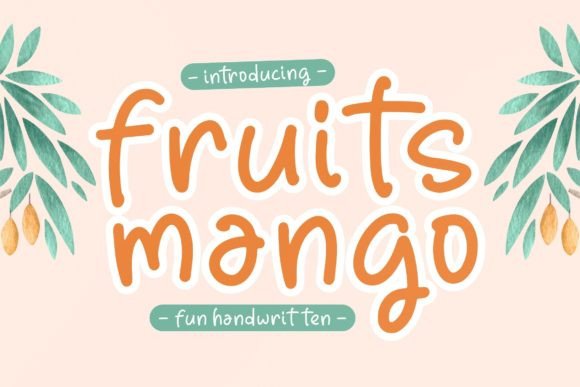
Behold, the captivating Fruits Mango Font, a script typeface that exudes charm and playfulness. It's a handwritten wonder, meticulously crafted by the skilled artisans at Glorytype Studio, specifically designed to bring life to your creative endeavors.
Crafted with meticulous attention to detail, Fruits Mango is a symphony of curves and flourishes that dances across the page, evoking a sense of whimsy and delight. Its organic and fluid forms create a visual tapestry that's both eye-catching and inviting, making it an ideal choice for projects that demand a personal touch.
With its inherent versatility, Fruits Mango effortlessly adapts to a myriad of projects. Unleash your creativity and let it adorn your logos, branding projects, homeware designs, and product packaging. Bring a touch of charm to your mugs, quotes, posters, and shopping bags. Transform your t-shirts, book covers, name cards, and invitation cards into works of art. Let Fruits Mango grace your greeting cards, labels, photography, and watermarks, adding a layer of sophistication to any project.
Whether you're a seasoned designer or just starting your creative journey, Fruits Mango is the perfect font to elevate your projects to new heights. Its innate beauty captivates audiences, leaving a lasting impression that resonates with hearts and minds.
The beauty of Fruits Mango lies in its ability to evoke emotions and tell stories. Its whimsical strokes and graceful loops add personality and depth to your designs, creating a captivating narrative that transports viewers into a world of imagination and wonder.
So, embark on a creative adventure with Fruits Mango, the handwritten font that ignites your passion and transforms your designs into masterpieces. Let your creativity flourish as this font becomes your artistic muse, guiding you towards projects that captivate and inspire.